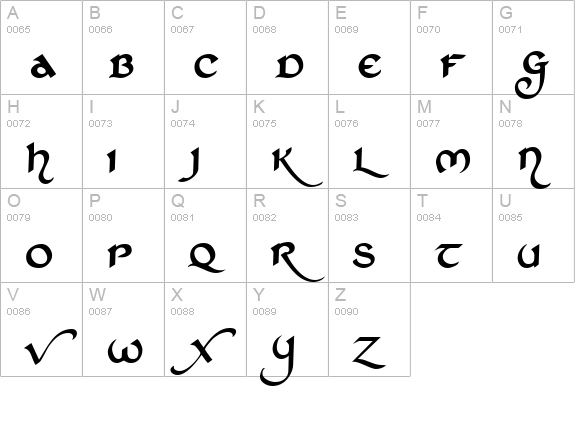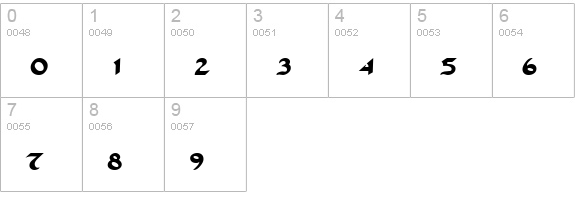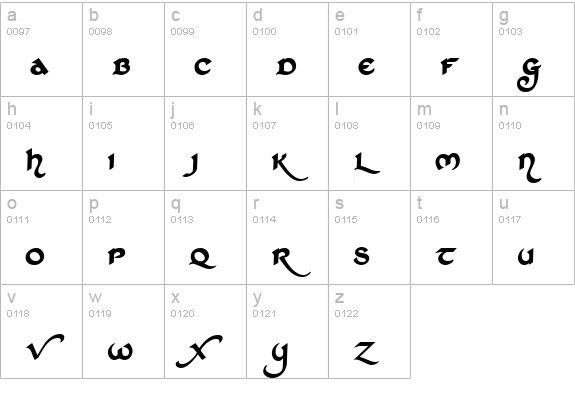
St Charles Dark Font Details
St Charles Dark font is a stunning display typeface that exudes an air of mystery and elegance. Its bold and intricate letterforms are perfect for creating captivating headlines, logos, and branding materials that demand attention. With its unique combination of sharp edges and flowing curves, St Charles Dark font adds a touch of sophistication to any design project. Whether you're working on a gothic-inspired poster, a mysterious book cover, or a stylish website, this font will effortlessly enhance the overall aesthetic and make your creations stand out from the crowd. What makes St Charles Dark font even more appealing is that it is free to download at FontsMarket.com. This means that you can easily access and use this remarkable typeface without any restrictions or limitations. Whether you're a professional designer or a creative enthusiast, having access to high-quality fonts like St Charles Dark font can greatly expand your design possibilities. So, don't miss out on the opportunity to add St Charles Dark font to your font library. Visit FontsMarket.com today and easily download this captivating typeface for free. Elevate your designs with the timeless elegance and sophistication that St Charles Dark font brings to the table.